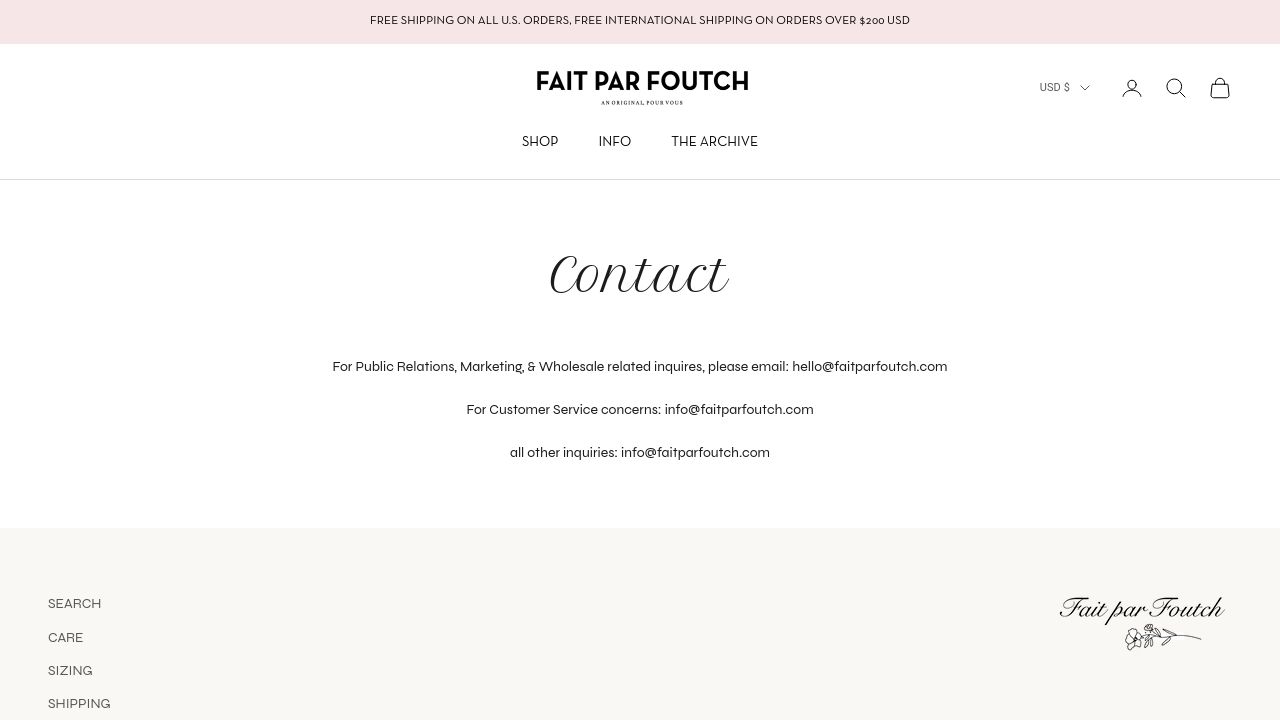
What fonts does Faitparfoutch use?
Faitparfoutch.com uses Syne, neutra-text-tf-5871e0b0704ed, PetitFormalScript-Regular, Inter and OpenSans as its main typefaces. Arial, Roboto, helvetica-neue and Segoe UI are declared as fallbacks. 22 fonts detected, last checked Sep 23, 2026.
Faitparfoutch.com, operating in the fragrance industry, captures attention with a diverse range of fonts that harmonize with its chic aesthetic. The use of Syne and Inter reflects a contemporary yet approachable vibe, appealing to both marketing professionals and consumers. Complemented by PetitFormalScript-Regular and Maison Neue Extended, the typography enhances the brand's identity while ensuring readability across various devices, inviting users to explore their offerings.
What fonts does Faitparfoutch.com use?
Faitparfoutch.com uses Syne, neutra-text-tf-5871e0b0704ed, PetitFormalScript-Regular, Inter and OpenSans as its main typefaces. Arial, Roboto, helvetica-neue and Segoe UI are declared as fallbacks. 22 fonts detected, last checked Sep 23, 2026.
What fonts are used on faitparfoutch.com?
Faitparfoutch.com primarily uses Syne, neutra-text-tf-5871e0b0704ed, PetitFormalScript-Regular, Inter, OpenSans, and others for a stylish and readable experience.
How do the fonts on faitparfoutch.com compare to alternatives?
Fonts like Syne and Inter offer a unique character compared to standard fonts. They provide a distinctive look while maintaining legibility, unlike more common choices like Arial or Times New Roman.
What styles and weights are available for the fonts on faitparfoutch.com?
The site employs various styles and weights, including weights for Inter ranging from 14 to 32 italic and Maison Neue Extended at 700, ensuring versatility in design.